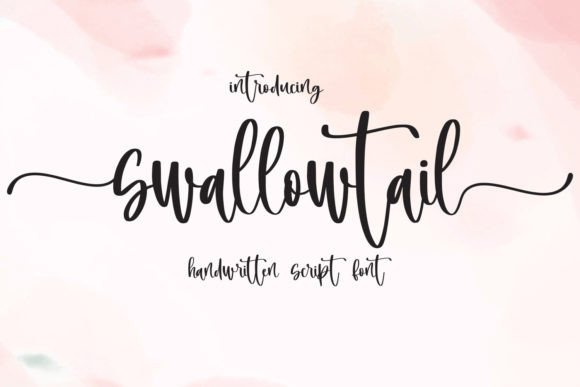
Swallowtail: A Handwritten Font for Heartfelt Design
Finding a typeface that feels genuinely human can be a challenge. In a world of sleek, digital precision, the warmth of a personal touch often gets lost. This is where Swallowtail enters the conversation. It’s a premium font that functions less like a sterile set of characters and more like a carefully penned note. As a script font, it doesn't just display words; it conveys feeling. Its flowing, connected letterforms mimic the natural rhythm of a hand holding a pen, creating an immediate sense of intimacy and authenticity that resonates on a personal level.
The visual character of Swallowtail is one of its greatest strengths. It’s a handwritten font defined by its soft curves, gentle loops, and a baseline that dances with a subtle, organic inconsistency. This isn't a chaotic scrawl; it’s a refined, legible script that balances personality with clarity. The overall impression is one of romantic flair and endearing charm, making it a powerful tool for projects that aim to connect emotionally with an audience. It feels less like a product and more like a gesture, adding a layer of sincerity that is difficult to achieve with more geometric typefaces.
Where Swallowtail Truly Shines
Understanding where a font like Swallowtail excels is key to using it effectively. It’s a specialist, not a generalist, and its strengths are most apparent in specific applications.
In brand identity, Swallowtail can become the cornerstone of a brand that wants to feel approachable, artisanal, and personal. Think of a boutique bakery, a wedding planner, a handmade jewelry shop, or a wellness coach. Used as a display font for logos and headings, it instantly communicates a brand story centered on care, craftsmanship, and human connection. It sets a tone that says, “We pay attention to the details, and we value our relationship with you.”
For packaging design, this typeface is a natural fit. It can transform a simple label into something that feels like a gift. On a jar of local honey, a box of artisanal chocolates, or the sleeve of a hand-poured candle, Swallowtail adds a layer of perceived quality and thoughtfulness. It suggests the product inside was made with love, which can be a powerful differentiator on a crowded shelf.
The digital space also offers rich opportunities. In web design, Swallowtail is perfect for hero sections, call-to-action buttons, or special feature headlines where you want to draw the eye and evoke emotion. It works beautifully on landing pages for events, special promotions, or personal portfolios. For social media graphics, it’s a game-changer. A quote graphic, a story announcement, or a thank-you post rendered in Swallowtail feels more personal and engaging, helping to build a stronger community connection. It’s a creative font that stops the scroll not with loudness, but with sincerity.
Don’t overlook its power in print and editorial design. A cookbook featuring family recipes, a poetry collection, or a heartfelt greeting card line would benefit immensely from Swallowtail’s warm personality. It brings a tactile, human quality to the page that invites readers in, making the content feel more intimate and cherished.
Influencing Perception and Engagement
A typeface is a silent ambassador for your message. Choosing Swallowtail has direct implications for how your content is perceived and how your audience engages with it.
Visual Hierarchy and Readability: As a script font, Swallowtail is designed for impact at larger sizes. It creates a clear visual hierarchy when used for headlines, subheadings, or pull quotes, drawing the reader’s eye to the most important emotional cues. For body text, however, readability becomes a concern. Long paragraphs set in a flowing script can be tiring to read. The best practice is to pair Swallowtail with a clean, highly legible sans serif font or a classic serif font for paragraphs. This pairing creates a dynamic contrast, allowing the handwritten elements to provide flair while the companion font ensures comfort and clarity.
Brand Perception and Consistency: Consistently using Swallowtail across touchpoints builds a cohesive and recognizable brand identity. It fosters a perception of warmth, authenticity, and approachability. However, this must be balanced with professionalism. Using it for every single element can dilute its impact and make a design feel cluttered or overly casual. The key is strategic deployment to reinforce the brand’s core message of heartfelt connection.
Audience Engagement: Fonts trigger emotional responses. The heartfelt charm of Swallowtail can lower psychological barriers, making a brand or message feel more trustworthy and relatable. This can lead to higher engagement rates, whether that’s a click on a “Learn More” button, a longer time spent on a page, or a stronger feeling of loyalty from a customer. It turns a transaction into an interaction.
A Practical Guide to Using Swallowtail
Integrating a new design asset like Swallowtail into your workflow requires a thoughtful approach. Here’s how to ensure it works for you.
Evaluate the Project Fit: Before you even download, ask yourself: Does this project call for a personal, emotional touch? Is the subject matter celebratory, intimate, or artisanal? If you’re designing a corporate annual report or a technical manual, Swallowtail is likely the wrong choice. But for a wedding invitation, a charity appeal, or a creative portfolio, it could be perfect.
Ultimately, Swallowtail is more than just a typeface; it’s a tool for storytelling. It’s a modern typography choice that harkens back to the timeless art of handwriting. By using it thoughtfully and strategically, you can inject a dose of genuine warmth and personality into your projects, creating work that doesn’t just look beautiful, but feels deeply human.